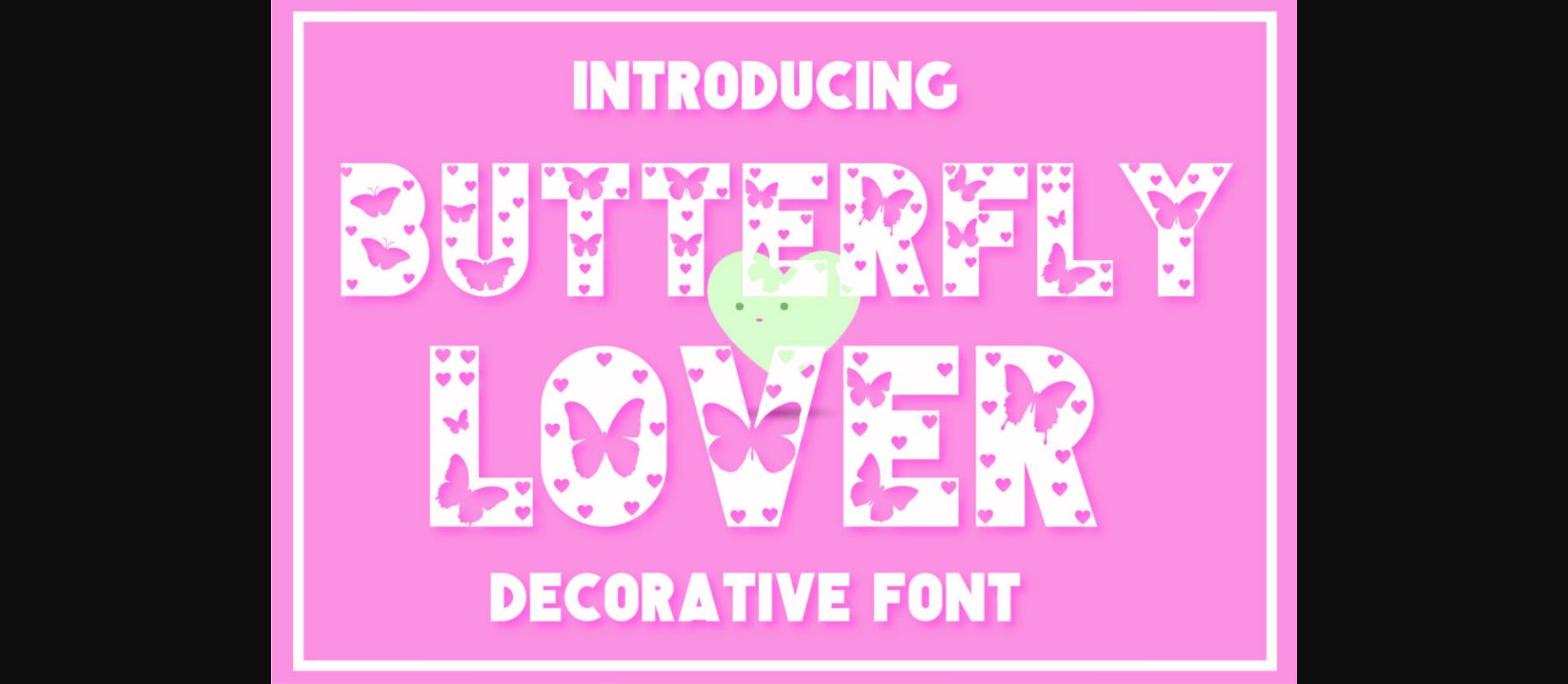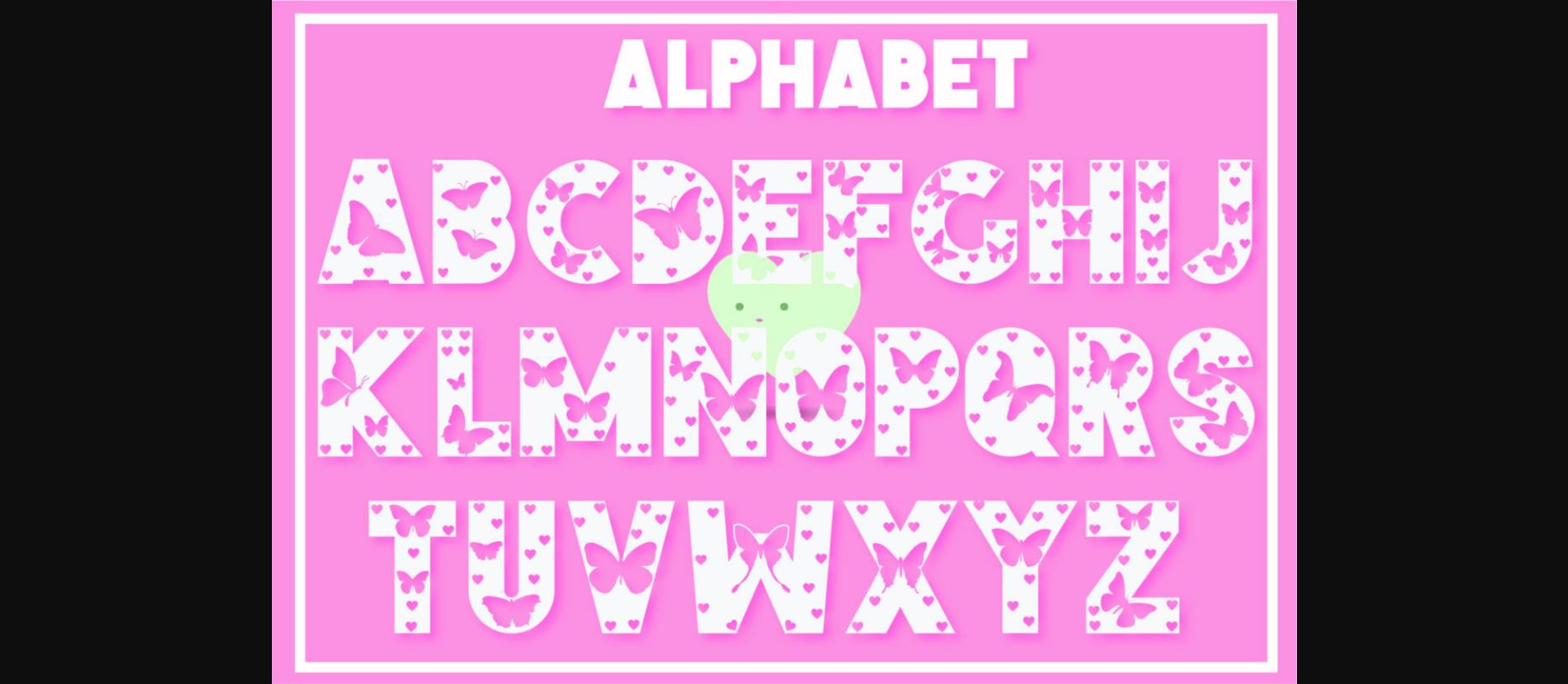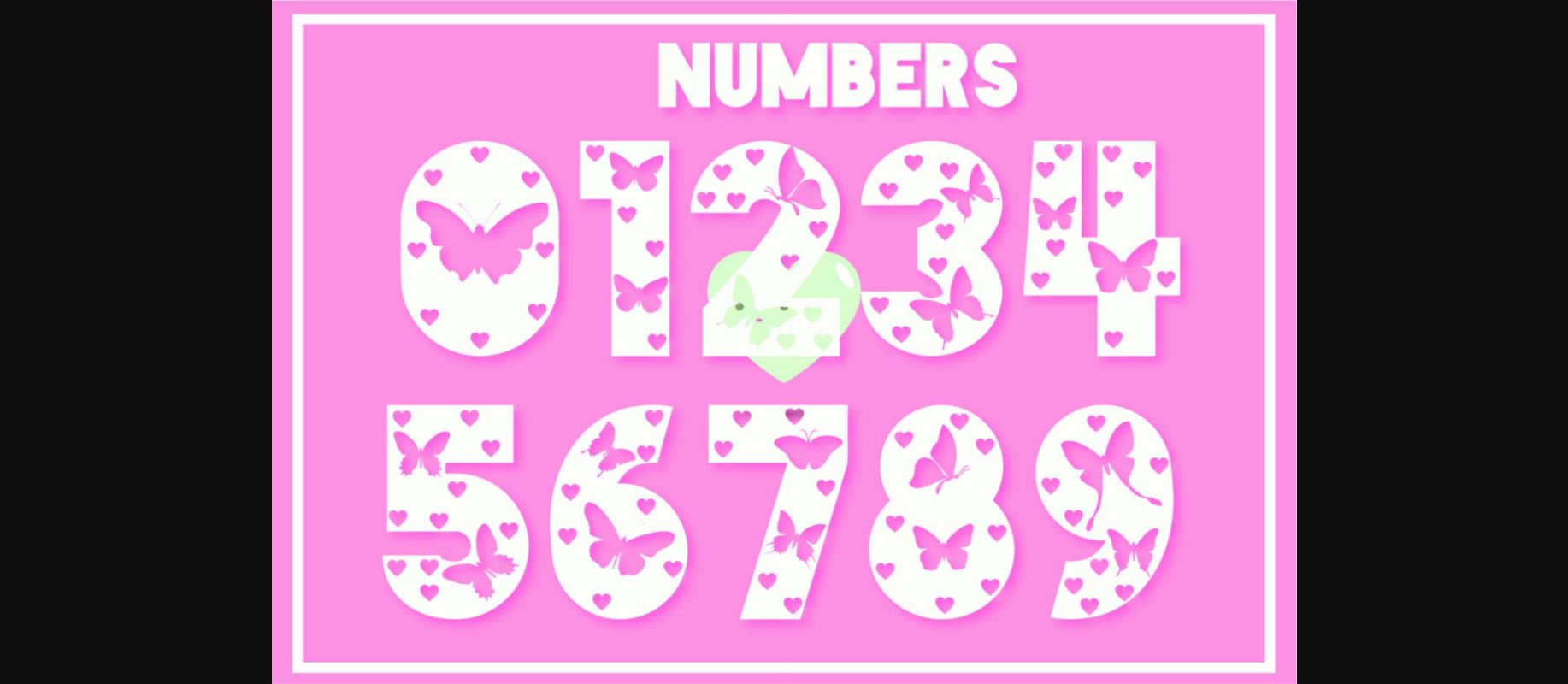
Butterfly Lover Font
About Butterfly Lover Font
Butterfly Lover is a cute, adorable, and original-looking decorative font. Add it confidently to your projects and you will love the results!